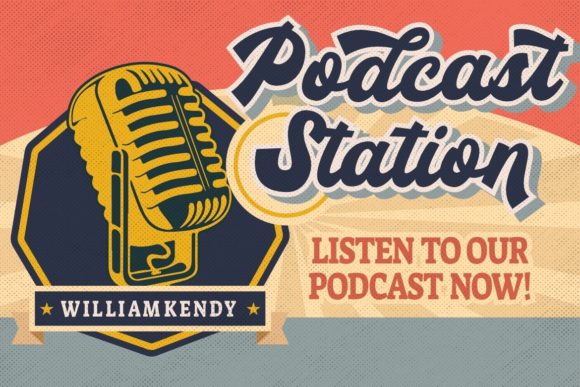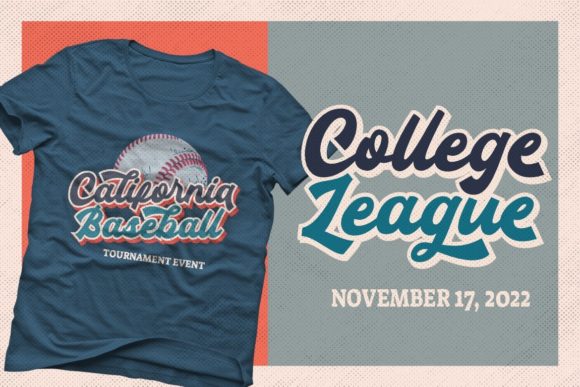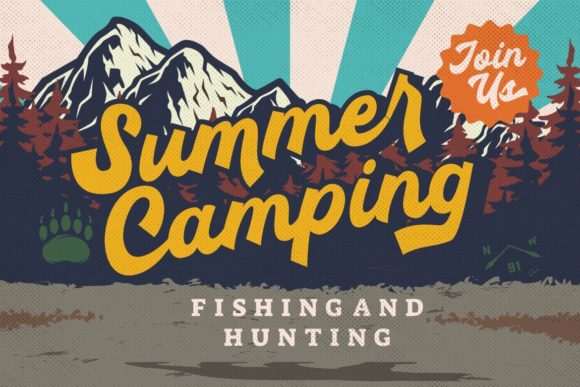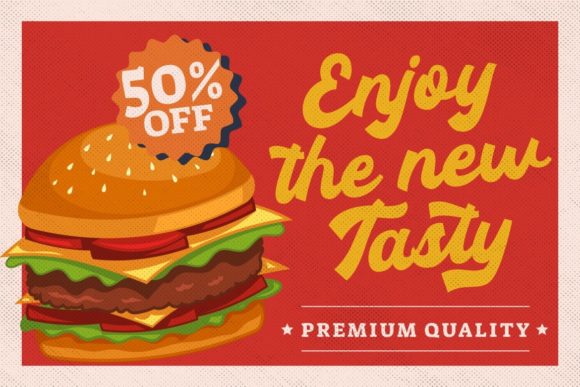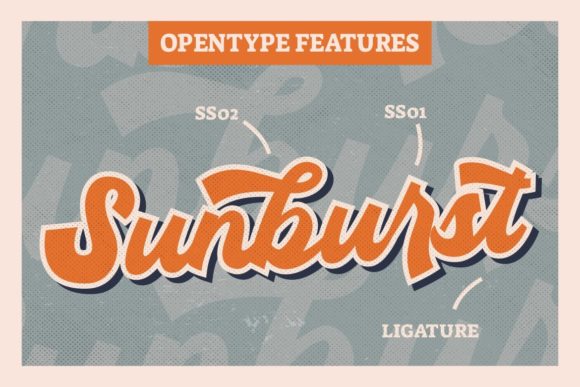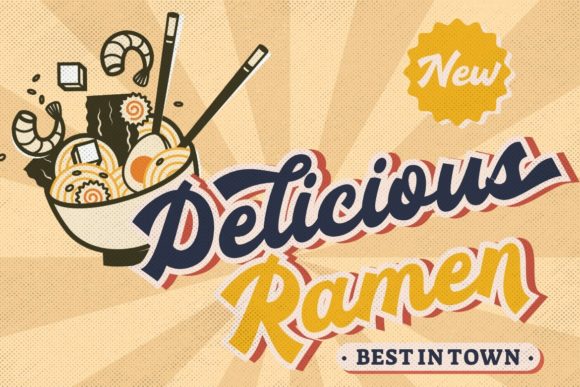
Gading Retro Font: Elevate Your Designs with a Stylish and Nostalgic Touch
Are you looking for a font that can add a bold, confident, and dynamic touch to your headlines and logotype projects? Look no further than the Gading Retro Font. This gorgeous handwritten font is crafted to give your designs a stylish and nostalgic feel that’s sure to capture the attention of your audience.
What is Gading Retro Font?
Gading Retro Font is a beautifully designed handwritten font that’s perfect for creating stunning headlines, logotypes, and other design projects. Its bold and confident style makes it ideal for use in a variety of design applications, from posters and flyers to branding and packaging.
Key Features of Gading Retro Font
So, what makes Gading Retro Font so special? Here are just a few of its key features:
- Bold and Confident Style: Gading Retro Font has a strong, confident, and dynamic style that’s perfect for making a statement.
- Nostalgic Character: This font has a nostalgic feel that’s sure to add a touch of warmth and personality to your designs.
- Handwritten Style: This font has a beautifully crafted handwritten style that’s perfect for creating unique and eye-catching designs.
Why Use Gading Retro Font?
So, why should you use Gading Retro Font in your designs? Here are just a few reasons:
- Add a Touch of Nostalgia: Gading Retro Font has a nostalgic feel that’s sure to add a touch of warmth and personality to your designs.
- Stand Out from the Crowd: This font’s bold and confident style makes it perfect for creating designs that stand out from the crowd.
- Versatile: This font can be used in a variety of design applications, from posters and flyers to branding and packaging.
Tips and Tricks for Using Gading Retro Font
Here are a few tips and tricks for getting the most out of Gading Retro Font:
- Experiment with Different Sizes: Try using Gading Retro Font in different sizes to create visual interest and hierarchy in your designs.
- Pair it with Other Fonts: Pair Gading Retro Font with other fonts to create a unique and eye-catching combination.
- Use it for Headlines and Logotypes: Use Gading Retro Font for headlines and logotypes to create a bold and confident statement.
In conclusion, Gading Retro Font is a gorgeous and bold handwritten font that’s perfect for adding a stylish and nostalgic touch to your designs. With its strong, confident, and dynamic style, this font is sure to capture the attention of your audience. Whether you’re a designer, craft, or DIY enthusiast, Gading Retro Font is a great addition to your font library.